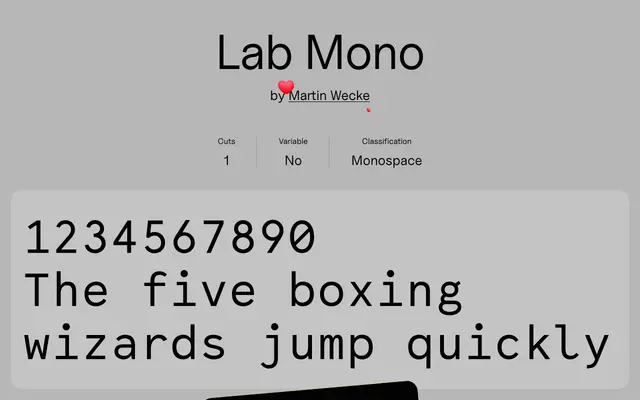
Lab Mono
A single-cut monospaced typeface by Martin Wecke, released under the SIL Open Font License for free commercial and personal use.
A minimal monospaced typeface available in one cut, designed by Martin Wecke and distributed freely via Uncut. Released under the SIL Open Font License 1.1, it permits commercial use, modification and redistribution with some additional conditions. Its no-frills offering suits coding environments and technical documentation where a clean, unfussy mono is required.
Classified explicitly as monospace by the foundry; a single-cut monospaced typeface with no variable or width variants.